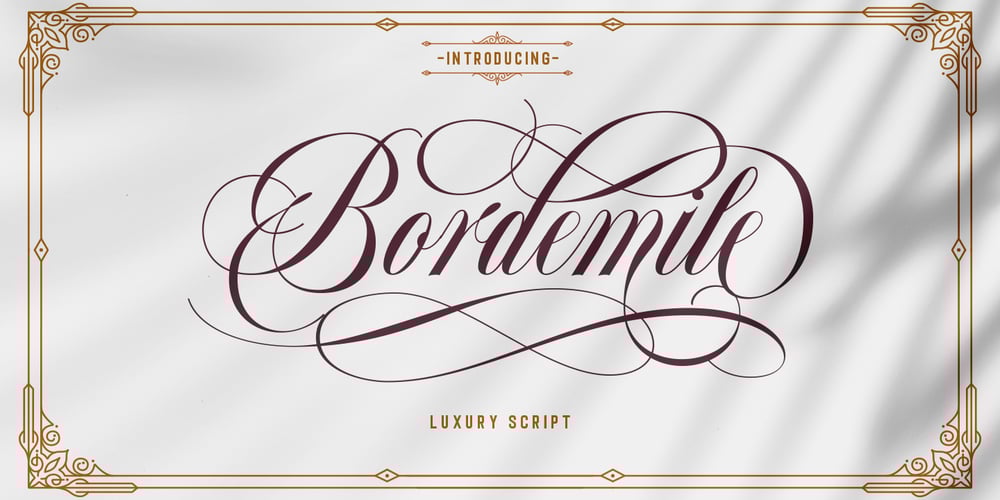
Bordemile Font Family was designed by Hendry Juanda, Sarid Ezra and published by Letterhend. Bordemile contains 1 styles and family package options. Introducing Bordemile, a luxury script with unique swashes! It works perfectly for headline, logotype, apparel, invitation, branding, packaging, advertising etc.